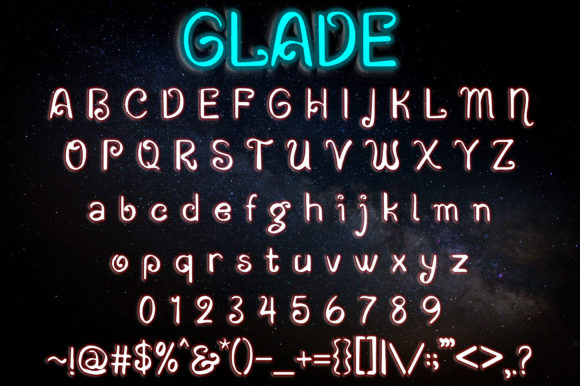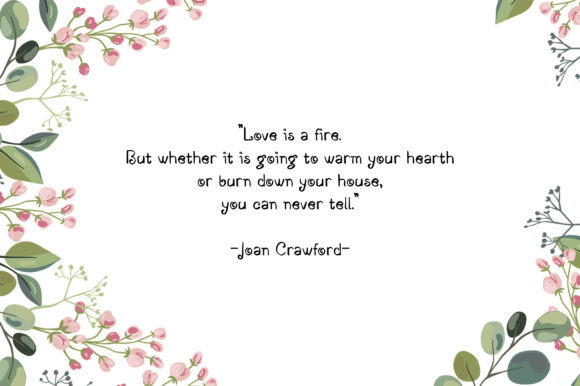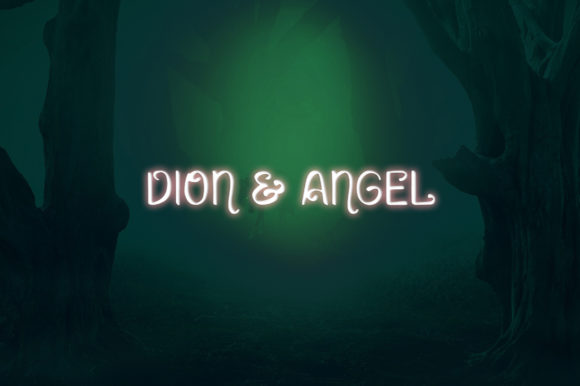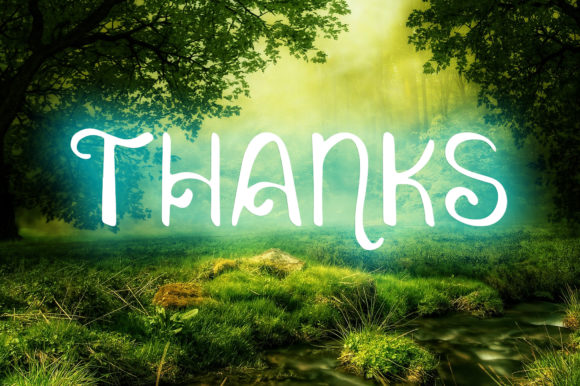
Introducing Glade Font: The Sweet and Friendly Handwritten Font for Your Creative Projects
Are you a designer, crafter, or DIY enthusiast looking for a font that can add a personal touch to your projects? Look no further than Glade Font, a sweet and friendly handwritten font that’s perfect for a wide range of designs. With its natural and unique style, Glade Font is incredibly versatile and can be used for various creative projects, from handmade crafts to digital designs.
The Charm of Glade Font
Glade Font is a beautifully crafted handwritten font that’s designed to bring a touch of warmth and personality to your designs. Its sweet and friendly style makes it perfect for projects that require a personal and approachable feel. Whether you’re creating invitations, greeting cards, or social media graphics, Glade Font is sure to make your designs stand out.
One of the unique features of Glade Font is its natural and organic look. The font’s handwritten style gives it a human touch that’s hard to find in digital fonts. The letters are carefully crafted to resemble handwriting, with subtle variations in line width and spacing that give the font a relaxed and effortless feel.
Endless Possibilities with Glade Font
The versatility of Glade Font is one of its most significant advantages. The font can be used for a wide range of designs, from traditional crafts to digital projects. Here are some ideas to get you started:
• Handmade crafts: Use Glade Font to add a personal touch to your handmade crafts, such as knitting patterns, sewing projects, or paper crafts.
• Digital designs: Glade Font is perfect for digital designs, including social media graphics, blog posts, and website headers.
• Stationery: Create beautiful stationery, including invitations, greeting cards, and letterheads, with Glade Font.
• Signs and banners: Use Glade Font to create eye-catching signs and banners for events, parties, or businesses.
Why Choose Glade Font?
So, why choose Glade Font for your creative projects? Here are some compelling reasons:
• Unique style: Glade Font has a unique and distinctive style that’s sure to make your designs stand out.
• Easily readable: The font is designed to be easily readable, making it perfect for body text and headings.
• High-quality: Glade Font is a high-quality font that’s designed to work seamlessly with digital design software.
• Versatile: The font can be used for a wide range of designs, from traditional crafts to digital projects.
Tips for Using Glade Font
Here are some tips for using Glade Font in your creative projects:
• Pair with other fonts: Experiment with pairing Glade Font with other fonts to create a unique and eye-catching design.
• Use for headings and titles: Use Glade Font for headings and titles to add a personal touch to your designs.
• Experiment with colors: Try out different colors and textures to add depth and interest to your designs.
In conclusion, Glade Font is a sweet and friendly handwritten font that’s perfect for designers, crafters, and DIY enthusiasts. Its natural and unique style makes it incredibly versatile and suitable for a wide range of designs. With Glade Font, the only limit is your imagination! So, get creative and explore the endless possibilities with Glade Font.